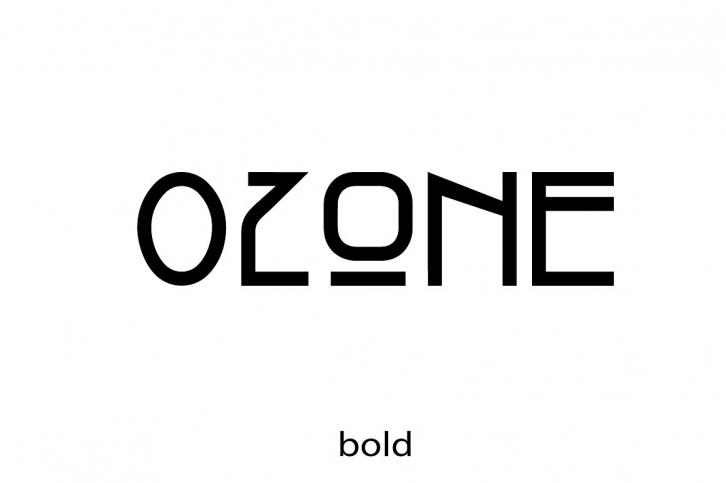
Display font OZone - fresh and creative bold version of OZone display sans serif font. All letters in caps - perfect for headlines, banners, posters, package, etc.
This is display font - only simple letters (in high register) and their decorative versions (typing small register), and numbers, no punctuations.